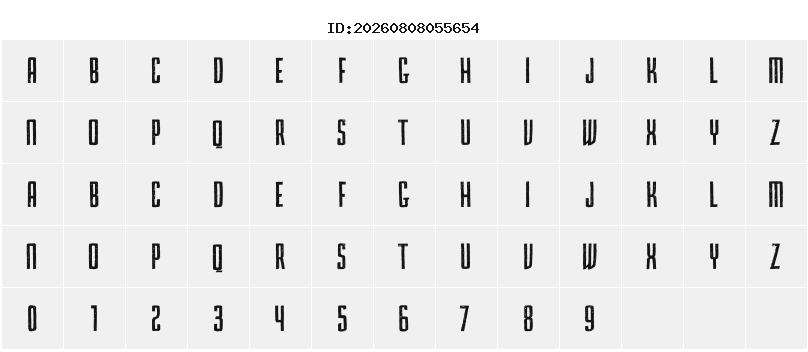
Primma Handmade Preview
• Font Name: Primma Handmade
• Designer: Jordi sempere for Grow the Type
About Primma Handmade.ttf
Primma Handmade.ttf is a modern, elegant sans-serif font designed for ultimate readability and visual harmony. Perfect for branding, headlines, web design, and print materials.